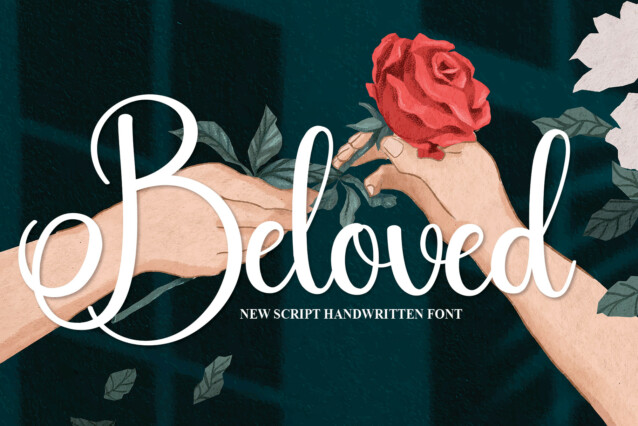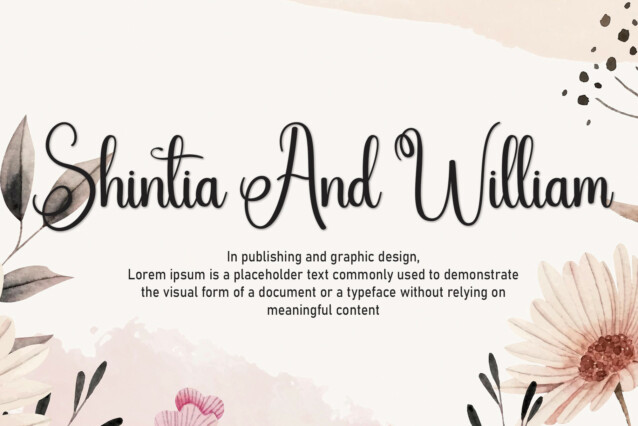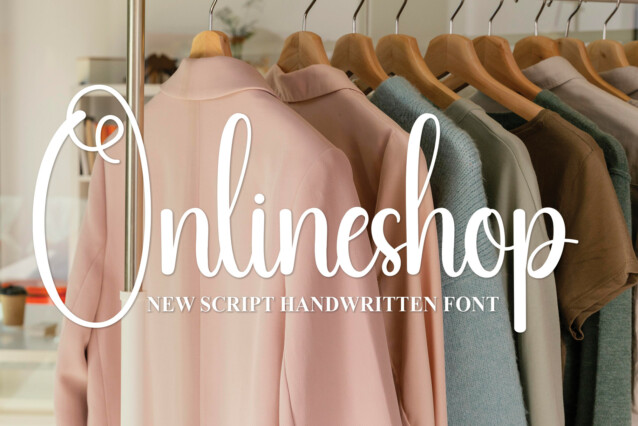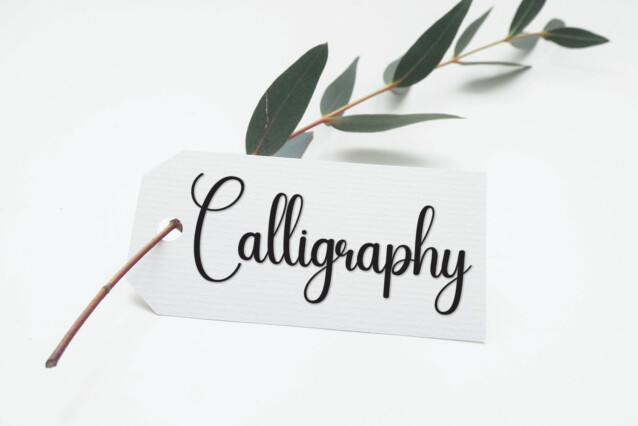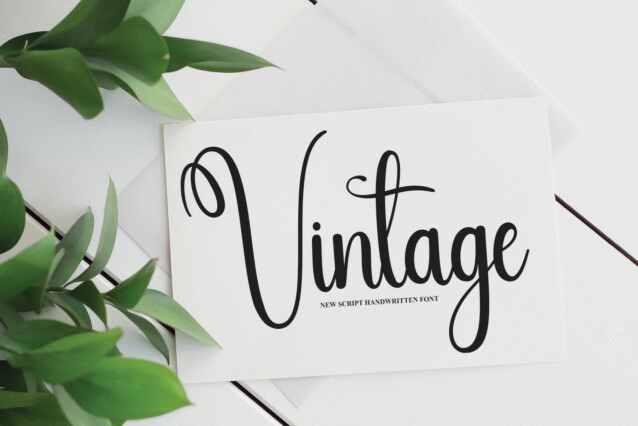
Beloved Script Typeface
Beloved Script Typeface is a flowing handwritten font, described by an elegant touch, perfect for your favorite projects. Fall in love with its incredibly distinct and timeless style and use it to create spectacular designs!